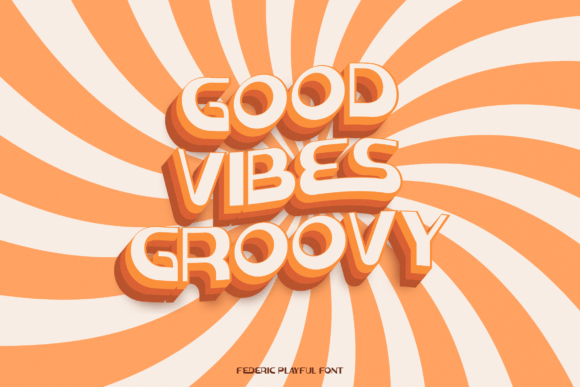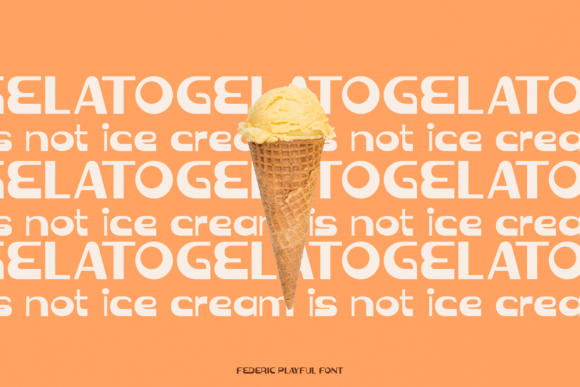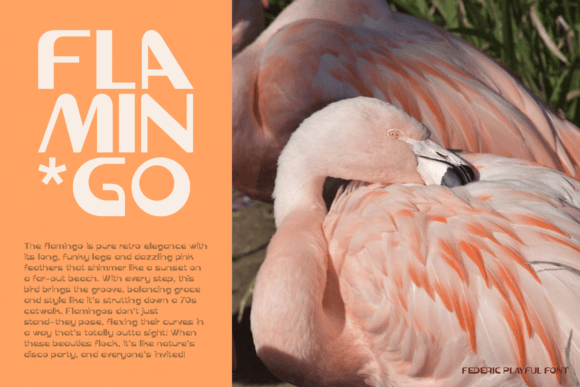
Introduction to Federic Playfull Font
Federic Playfull is a fun and bold display font.
Its playful curves and unique shapes make it perfect for eye-catching titles and creative designs Great for adding a cheerful touch to any project.
Why Choose Federic Playfull Font?
Federic Playfull Font offers exceptional quality and versatility, making it a valuable addition to your design toolkit. Whether you’re creating for personal projects or commercial use, Federic Playfull Font delivers professional results.